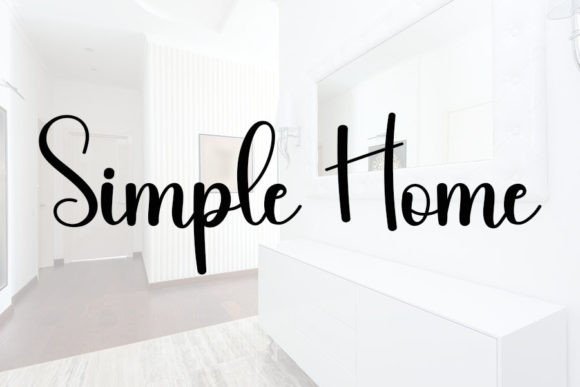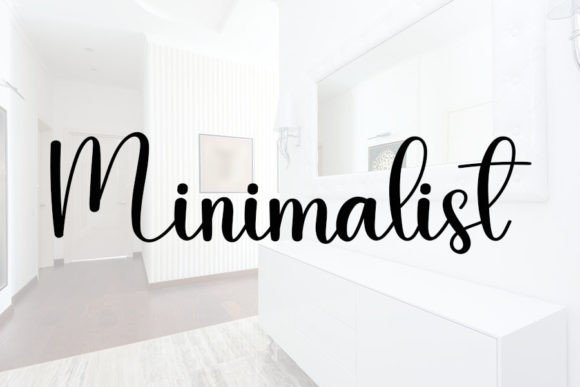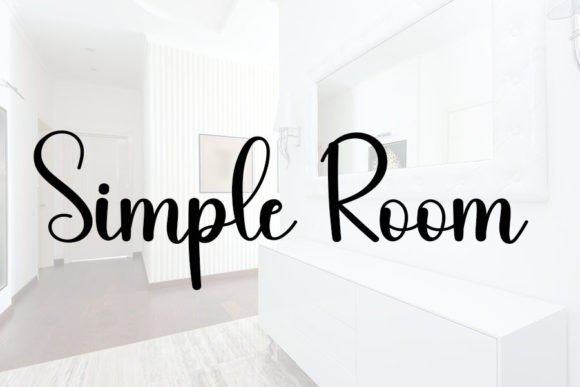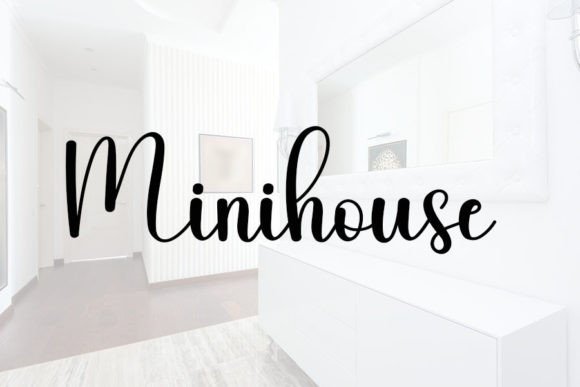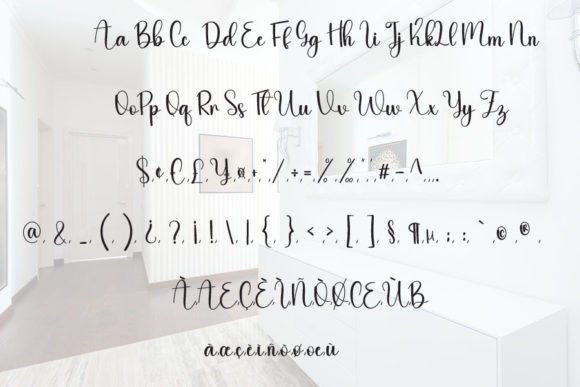
Introduction to Homely Font
Do you remember that moment when you stumbled upon the perfect font for your design project? The one that made everything click, and your creative vision come alive? For many designers, that moment is what makes all the hard work worth it. Today, we’re excited to introduce you to the Homely Font, a beautiful handwritten font that’s sure to add a touch of luxury to your next design project.
Whether you’re working on a branding project, a website, or a social media campaign, the Homely Font is a valuable resource that can elevate your design to the next level. Its unique, high-quality characters dance along the baseline, creating a beautiful and eye-catching effect that’s sure to grab attention. And the best part? It’s available for free download, making it a must-have for any designer looking to add a creative spark to their work.
Key Features of Homely Font
- High-quality design resource ideal for creative projects, offering a unique and homely feel.
- Comes in a single weight, making it easy to use in various design contexts without worrying about font weight inconsistencies.
- Perfect for designers seeking a friendly and approachable font that adds a touch of warmth to their creative project.
Honest Review: Homely Font
I’ve had the chance to work with many design resources over the years, but the Homely Font really stands out. This free download has been a game-changer for my creative projects.
Here are some things that I think work well with Homely Font:
- High-quality design that’s perfect for a variety of projects
- Transparent background makes it easy to overlay on images or videos
- Great for creating a homely or rustic feel in your design
- Only comes in a few font styles, which may not be ideal for complex projects
- May not be suitable for modern or sleek designs
Overall, I’m really impressed with Homely Font. It’s a great resource for designers who want to add a touch of warmth and personality to their projects. With its high-quality design and transparent background, it’s a must-have for any creative project.